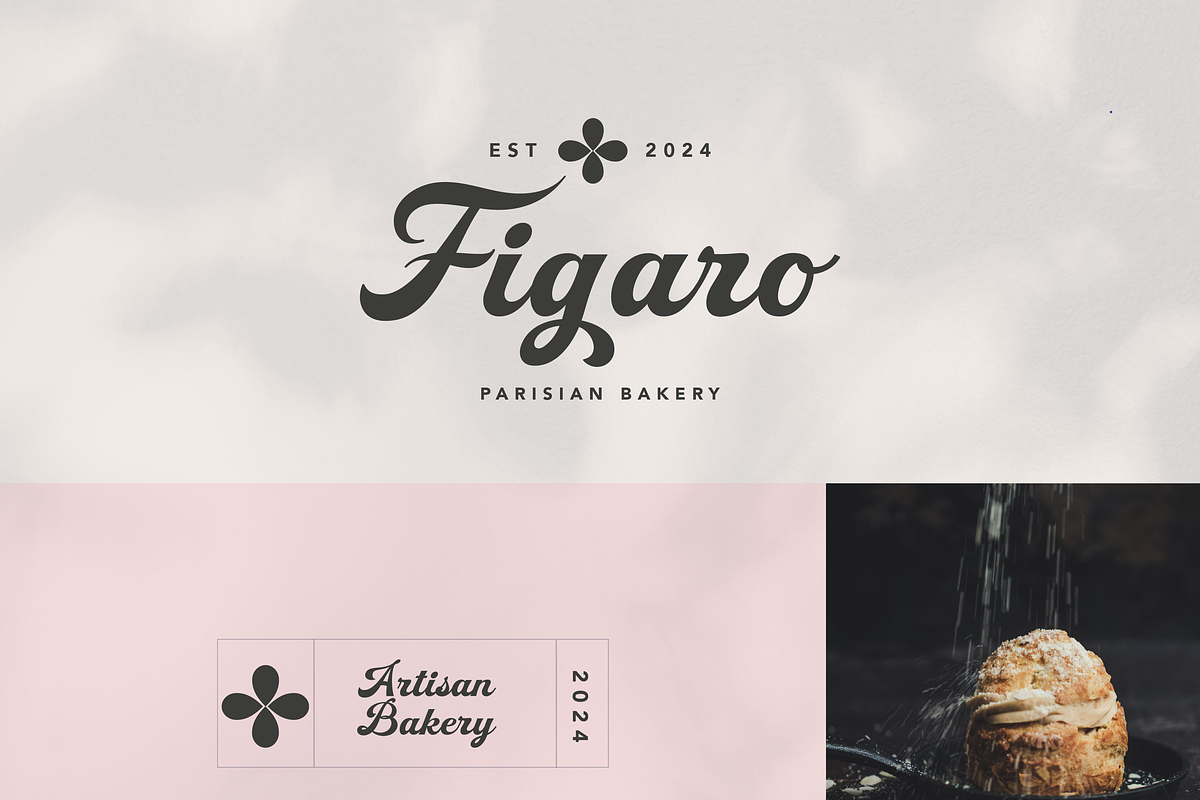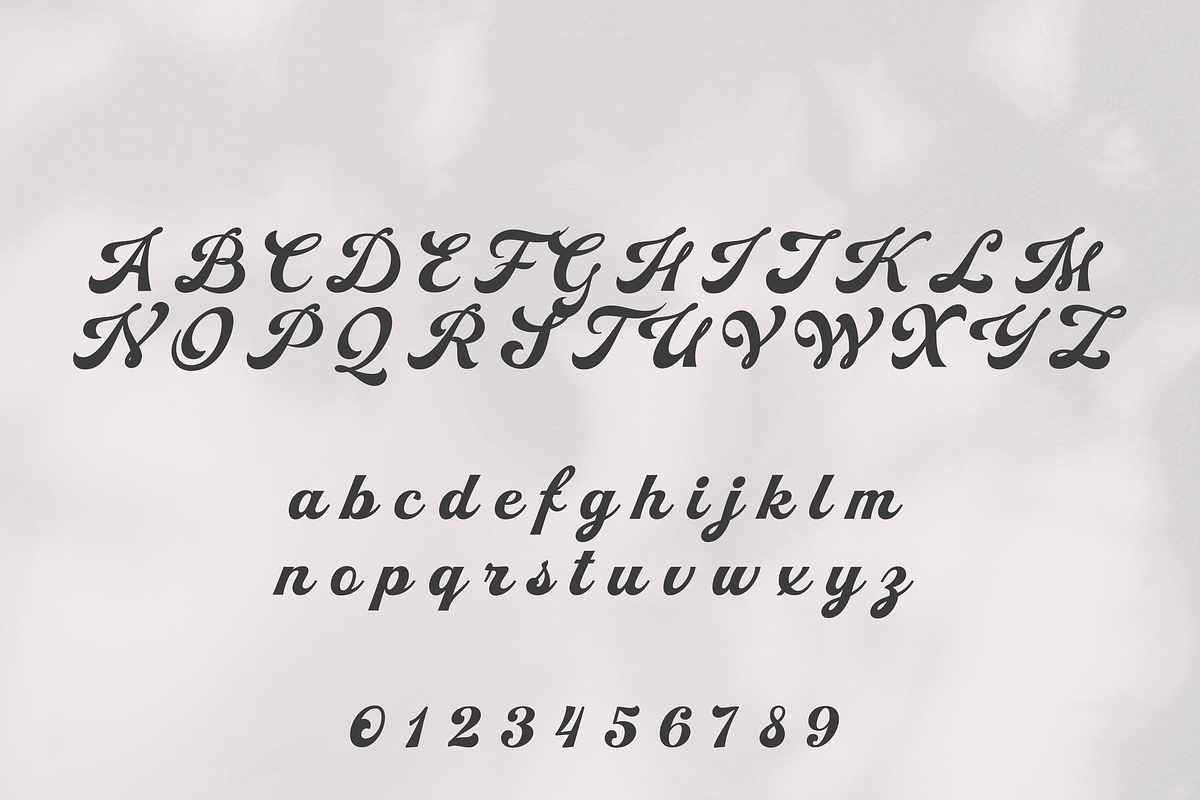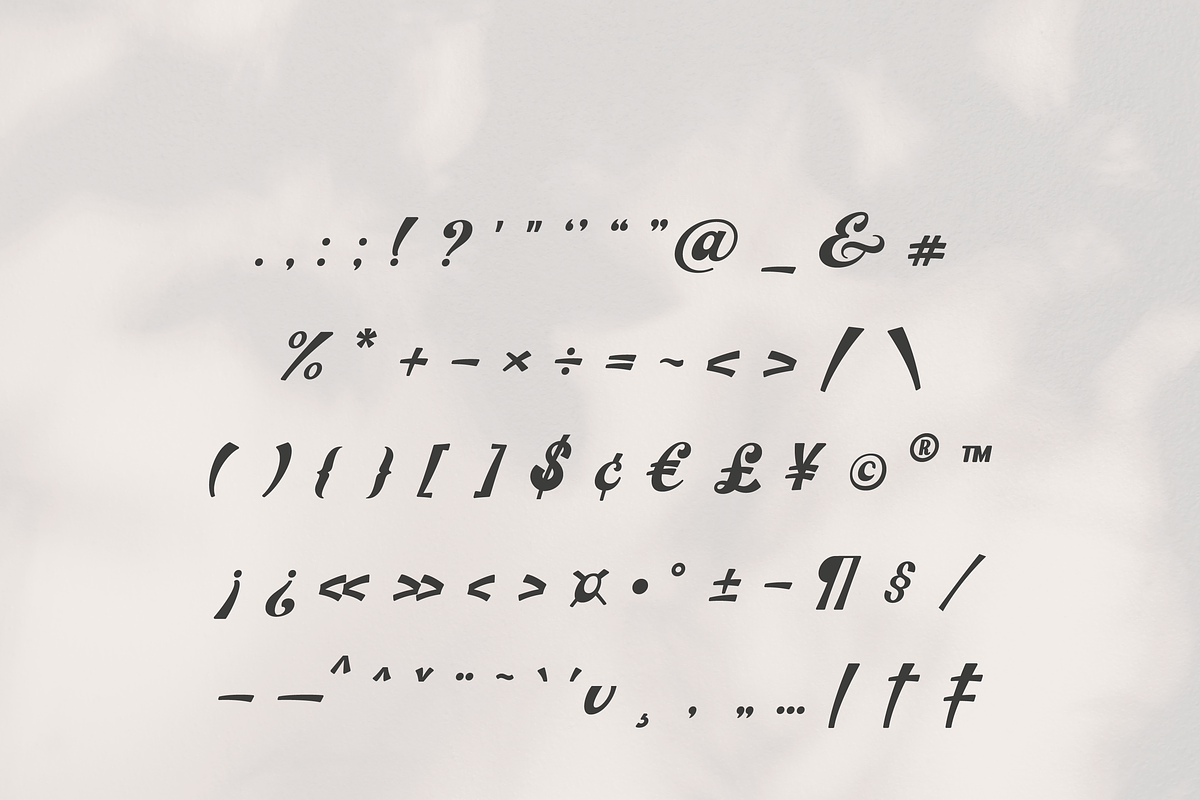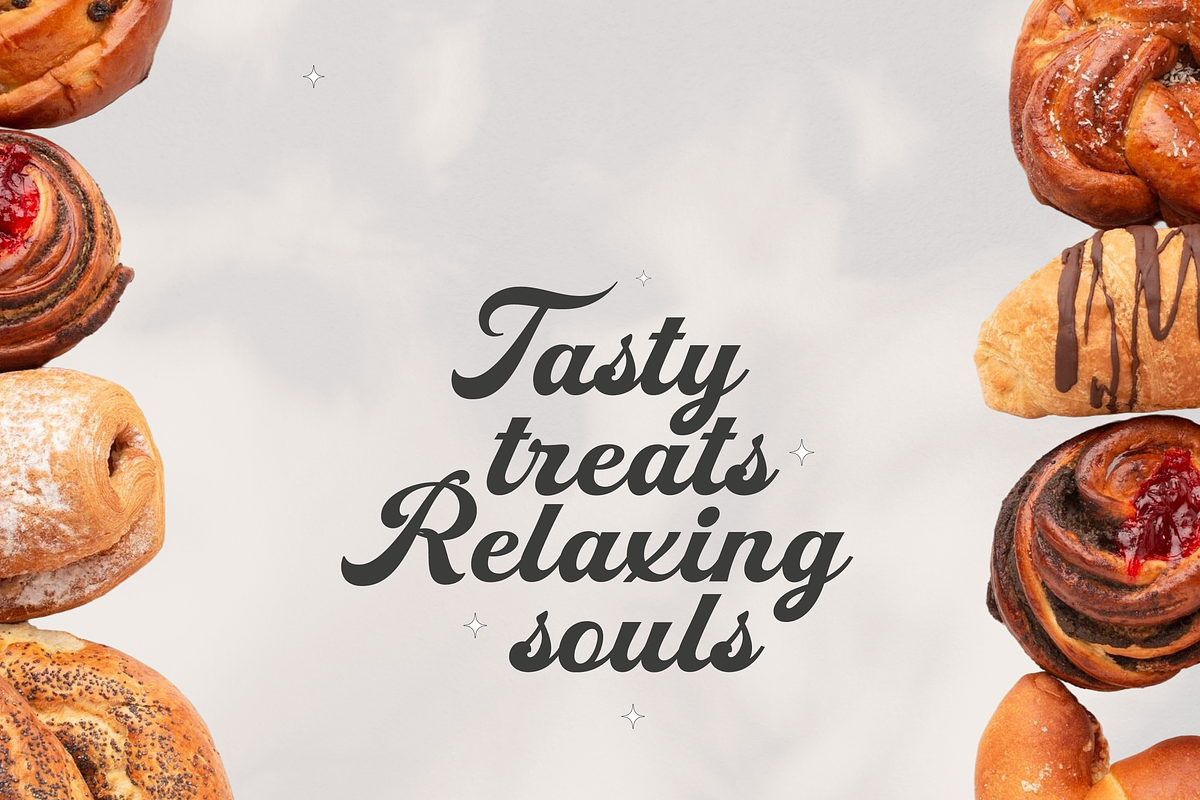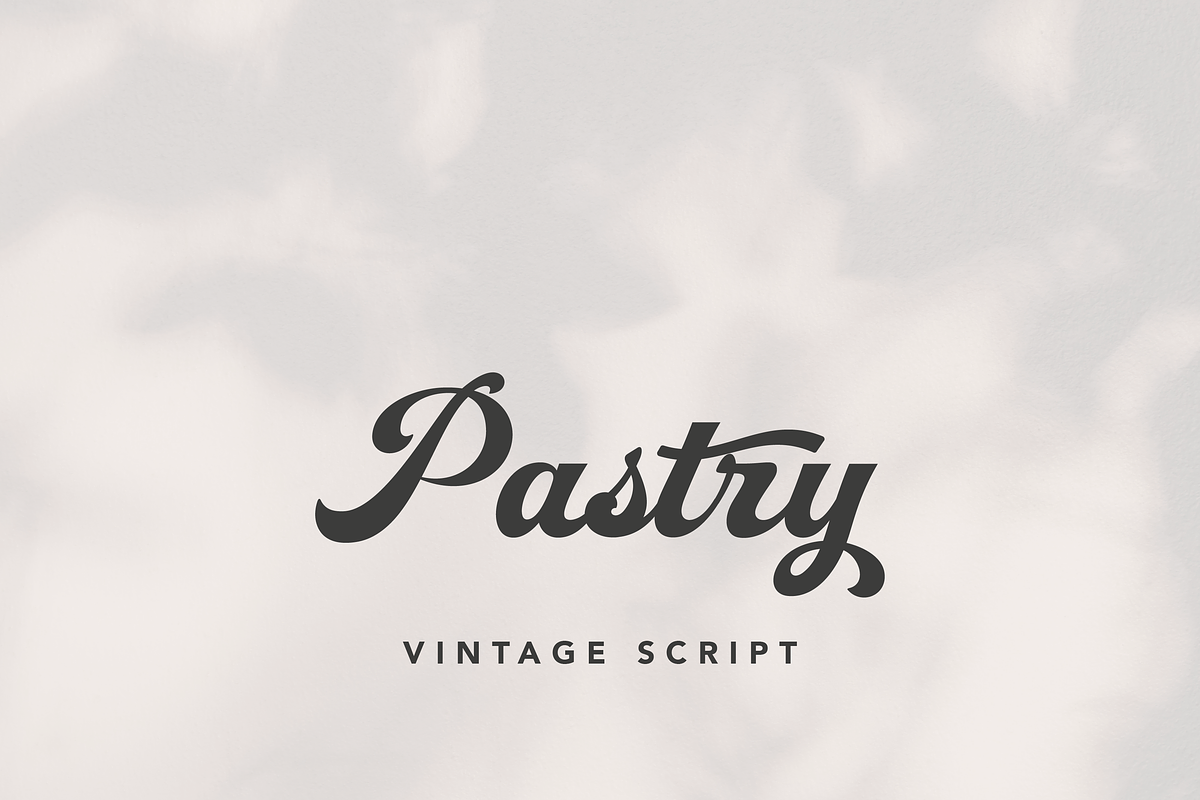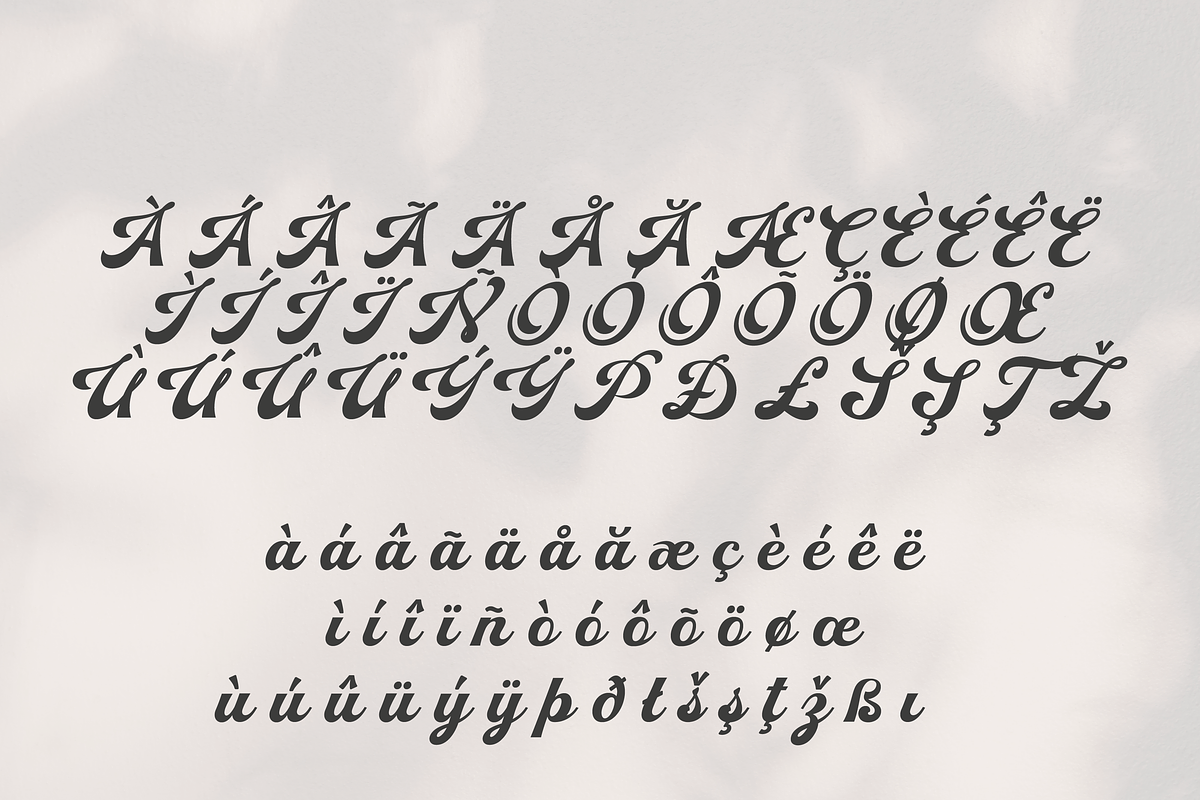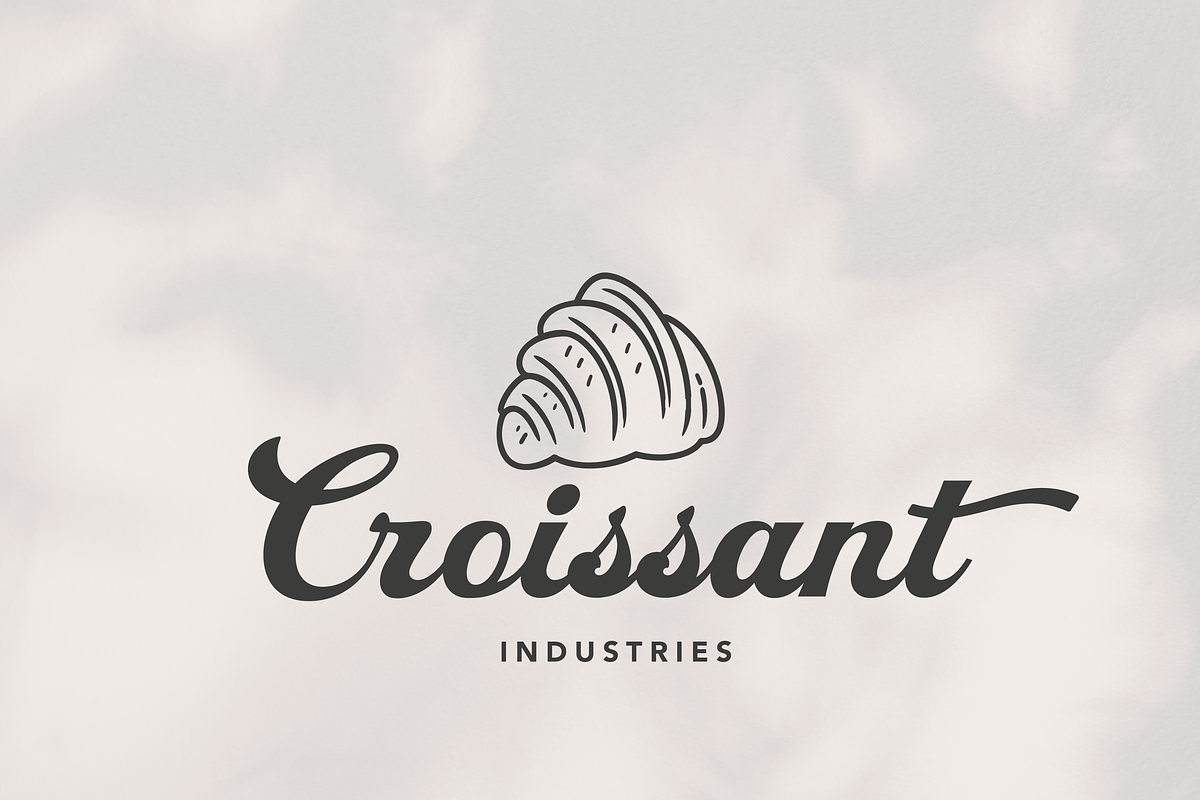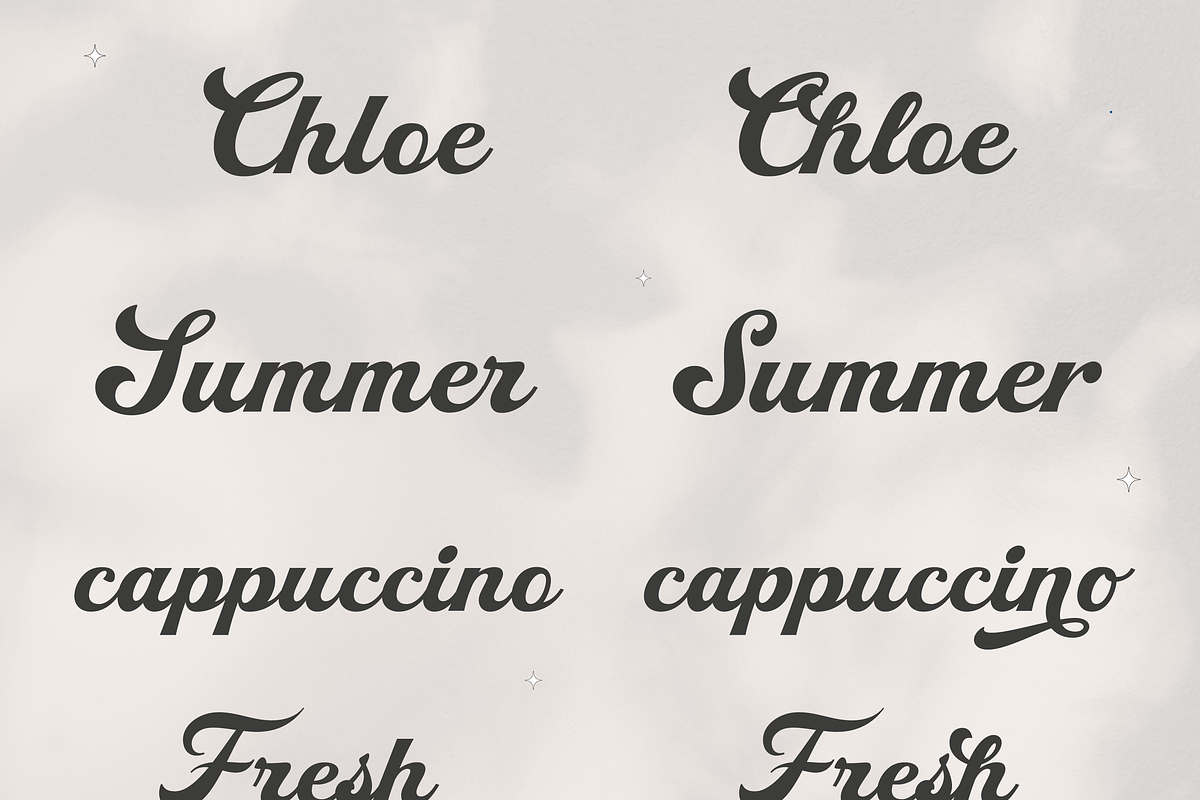
Pastry Script
Pastry – A Retro Hand-Lettered Script with Stylish Alternates
Pastry is a charming script font that captures the nostalgic feel of vintage signage with the fluidity of modern hand lettering. Its gently slanted italics and varied stroke weights bring warmth and personality to every word, while carefully crafted alternates add playful flourishes for custom typography.
With its blend of vintage charm and contemporary flexibility, Pastry is the perfect script for designers seeking a handcrafted, retro-inspired aesthetic.